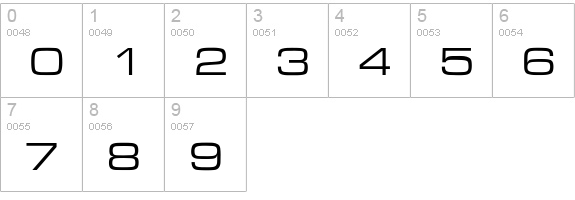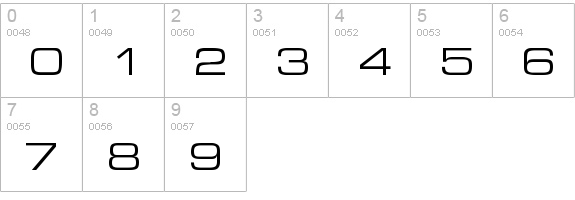
EurostileExtended-Roman-DTC Font Details
EurostileExtended-Roman-DTC is a modern and sleek typeface that exudes sophistication and professionalism. With its clean lines and geometric shapes, this font is perfect for creating eye-catching headlines, logos, and branding materials. Its extended Roman style adds a touch of elegance to any design project. The best part is that EurostileExtended-Roman-DTC is available for free download at FontsMarket.com. Now you can elevate your designs with this stylish font without breaking the bank. Whether you're working on a website, presentation, or print material, EurostileExtended-Roman-DTC will make your text stand out and leave a lasting impression on your audience. Download it today and take your design projects to the next level.